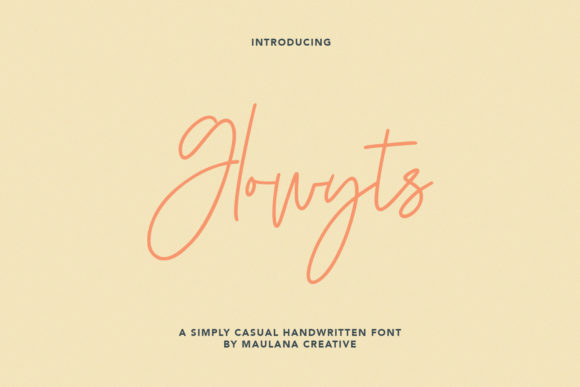
Introducing Glowyts Font: The Exquisite Script Font That Will Ignite Your Designs
Prepare to be captivated by Glowyts Font, a mesmerizing script font that exudes elegance and charm. Crafted with meticulous care by Maulana Creative, this font embodies sophistication and grace, making it the perfect choice for designers seeking to elevate their projects with a touch of timeless beauty.
Glowyts Font is characterized by its clean, thin, and smooth lines, creating a visual symphony that dances across your designs. Its delicate strokes evoke a sense of fluidity and movement, adding a touch of dynamism to your creations. Whether you're designing logos, branding materials, website text, or invitations, Glowyts Font will effortlessly elevate your work to new heights.
With its versatile nature, Glowyts Font effortlessly adapts to a wide range of design styles and themes. Its timeless appeal makes it suitable for both classic and contemporary projects, ensuring that your designs remain relevant and captivating. From delicate wedding invitations to bold posters, Glowyts Font seamlessly blends into your vision, enhancing it with a touch of sophistication.
But what truly sets Glowyts Font apart is its ability to evoke emotions and create a lasting impression. Its enchanting curves and graceful lines capture the attention of viewers, drawing them into the depths of your designs. Whether you're aiming for a whimsical, romantic, or modern aesthetic, Glowyts Font possesses the versatility to transform your ideas into captivating realities.